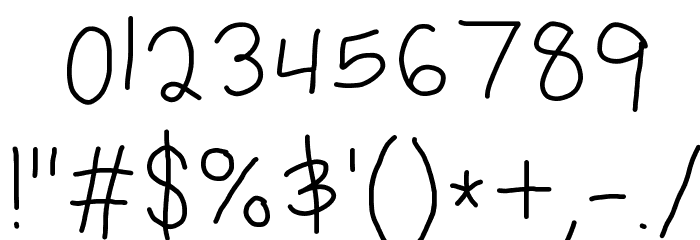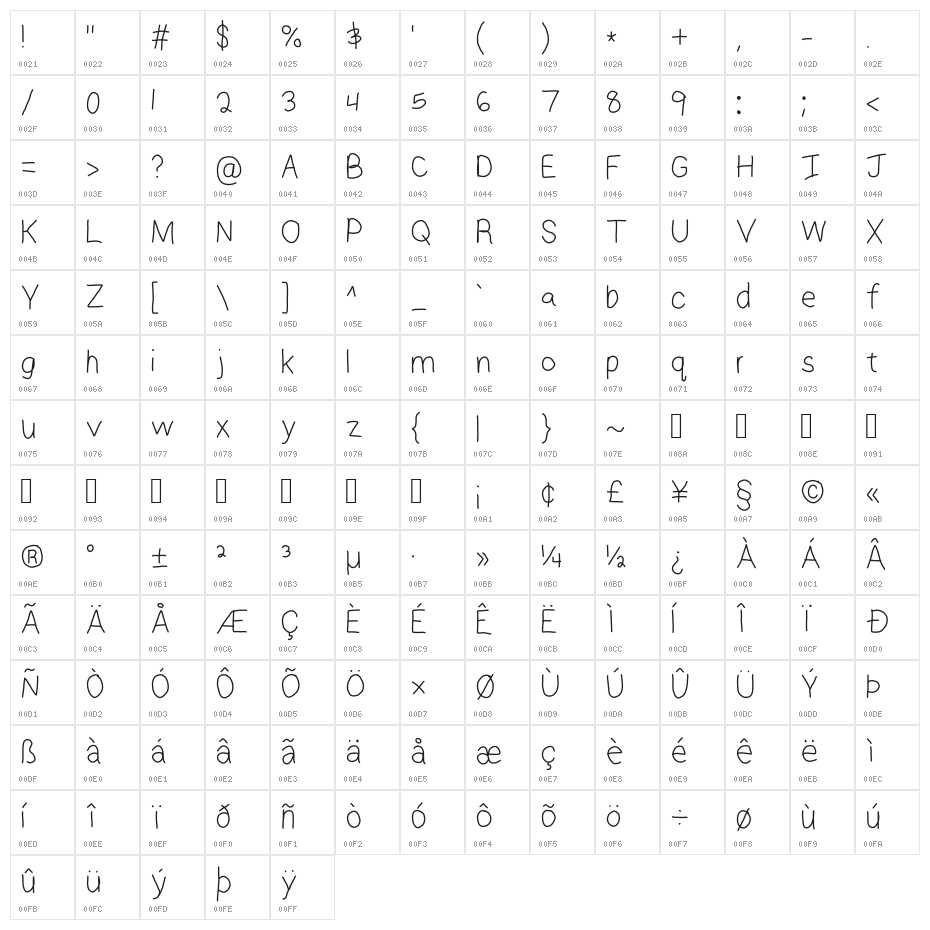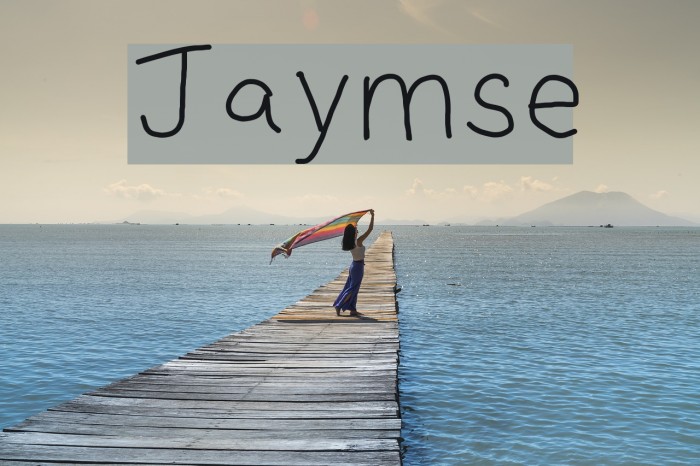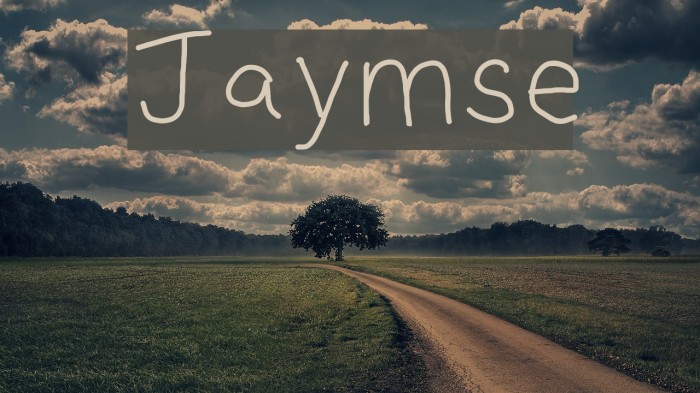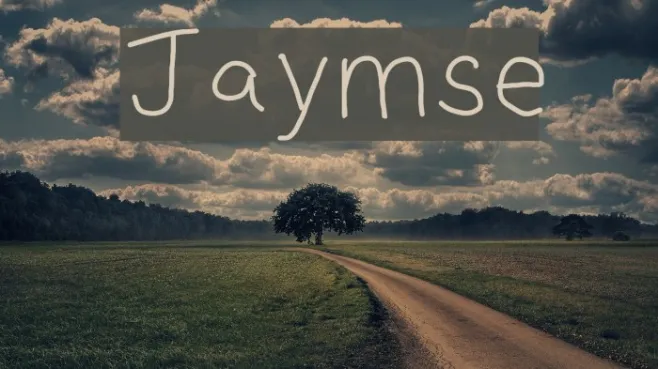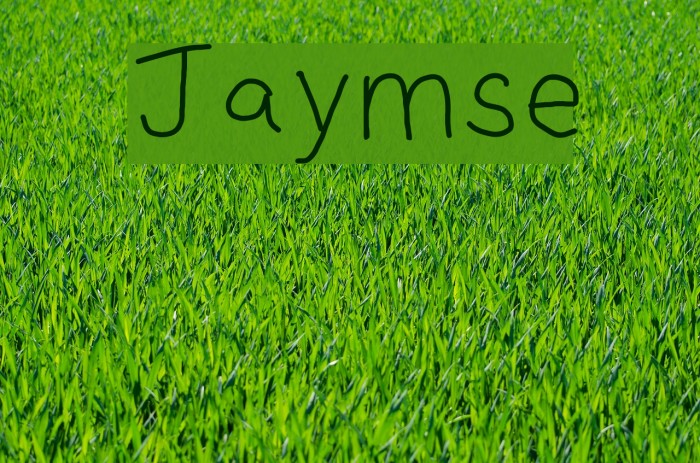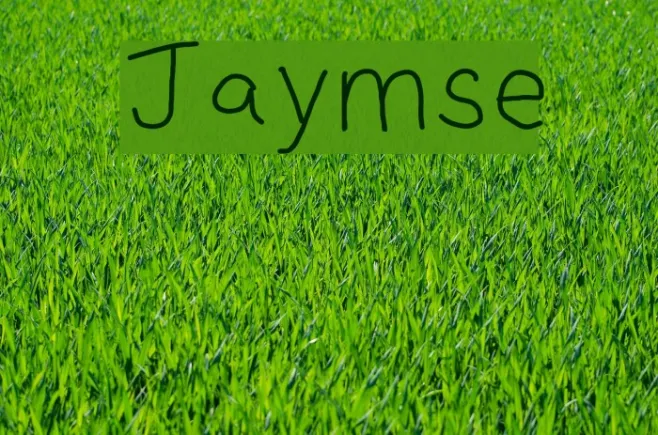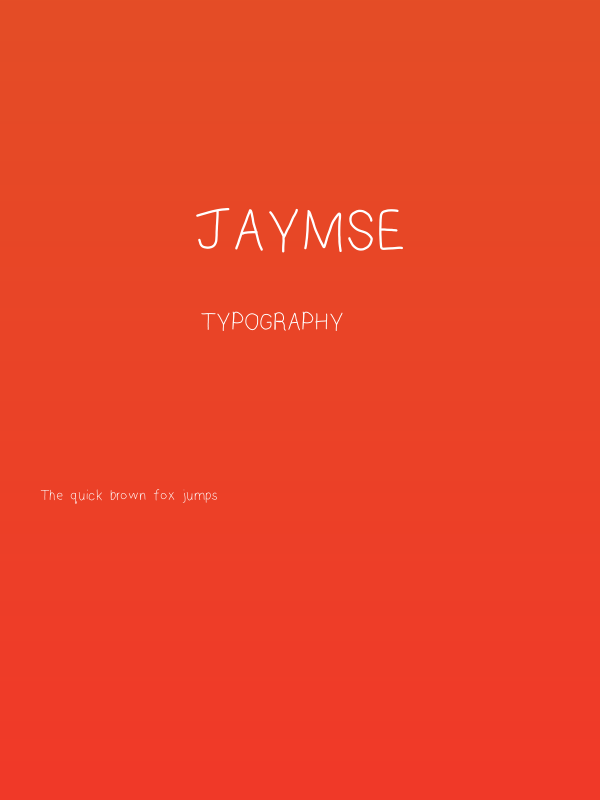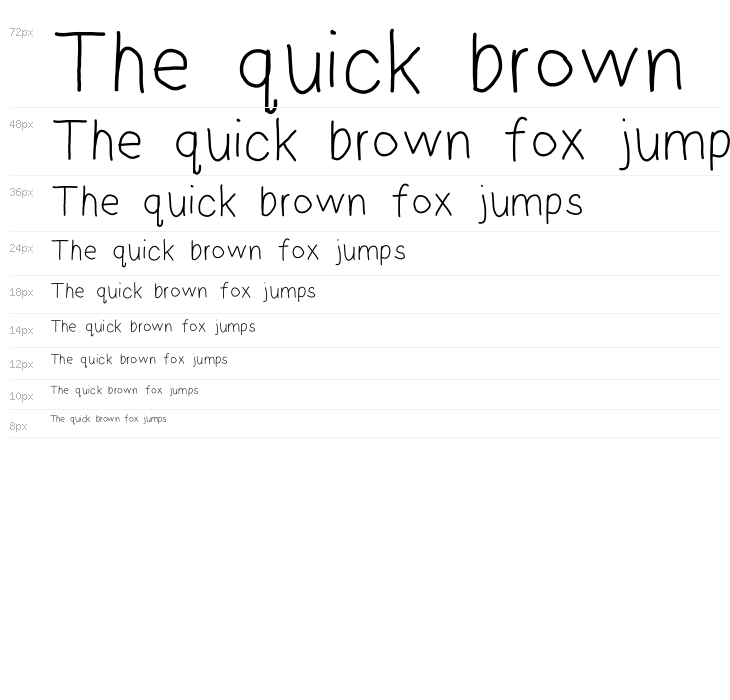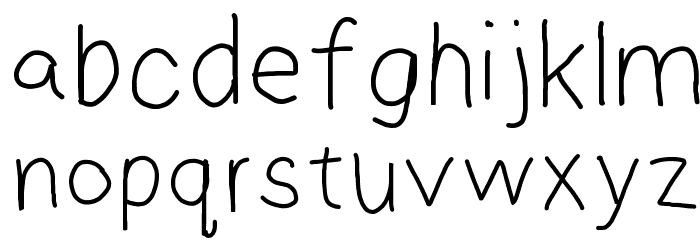
Jaymse Font
Jaymse Description
This font features a playful and informal handwritten style, characterized by its irregular and slightly wobbly strokes. The letters have a casual, friendly appearance with a slight tilt, giving them a dynamic and lively feel. The uppercase and lowercase letters maintain a consistent style, with rounded edges and varying stroke thicknesses that add to the font's charm. The numerals and special characters are crafted with the same whimsical touch, making them blend seamlessly with the alphabet. Overall, this font exudes a sense of creativity and spontaneity, making it ideal for projects that require a personal and approachable touch.
| Proposed Projects | Ideal for greeting cards, children's books, casual invitations, and creative branding projects. |